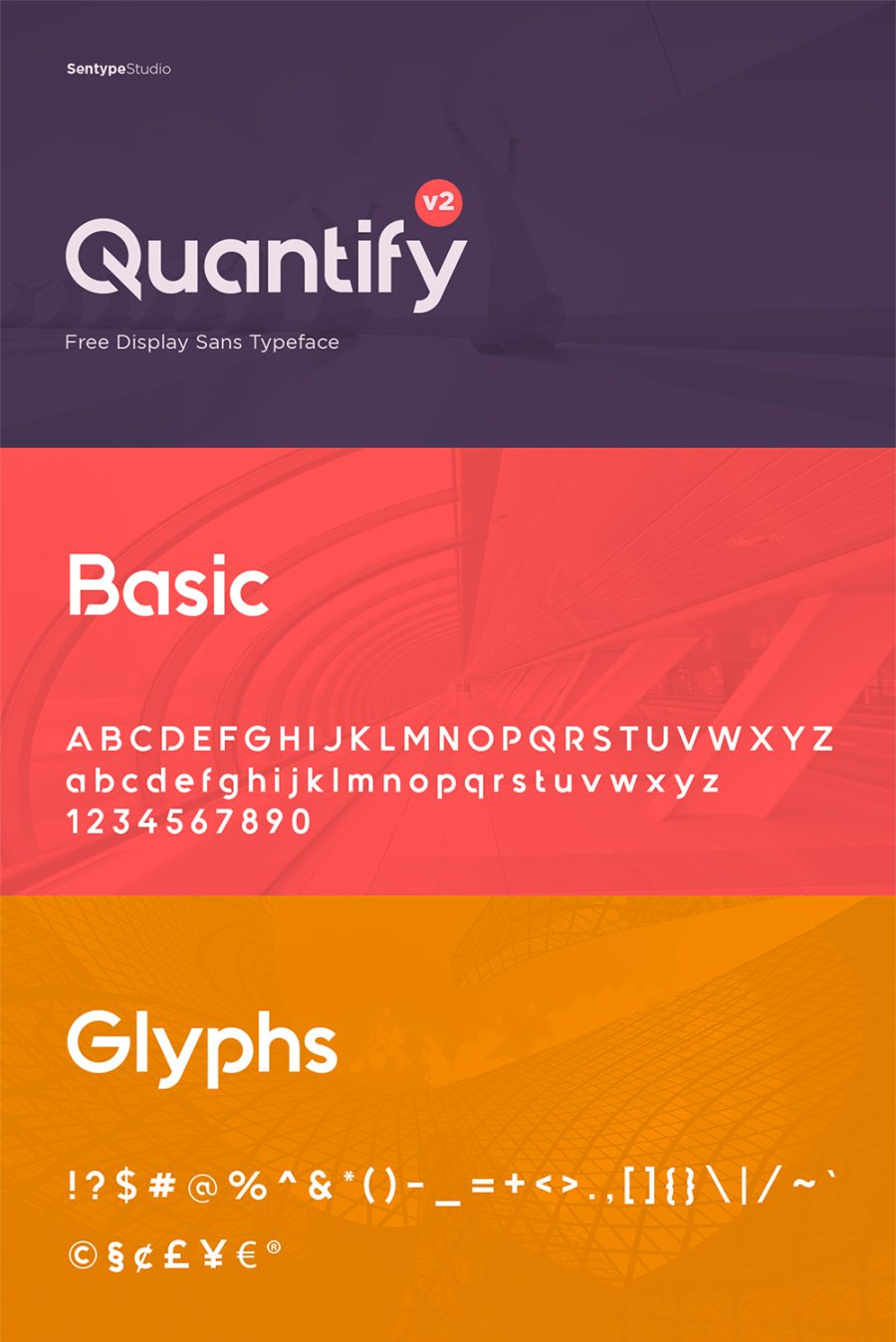
Quantify Sans V2 Free Typeface
A debut project of Saidi Alfianor on Behance is here today! Quantify Sans V2 Free Typeface, a neat geometric font. Quantify is great for a wide range of projects. It will look great as headline and standout for branding and packaging as well.